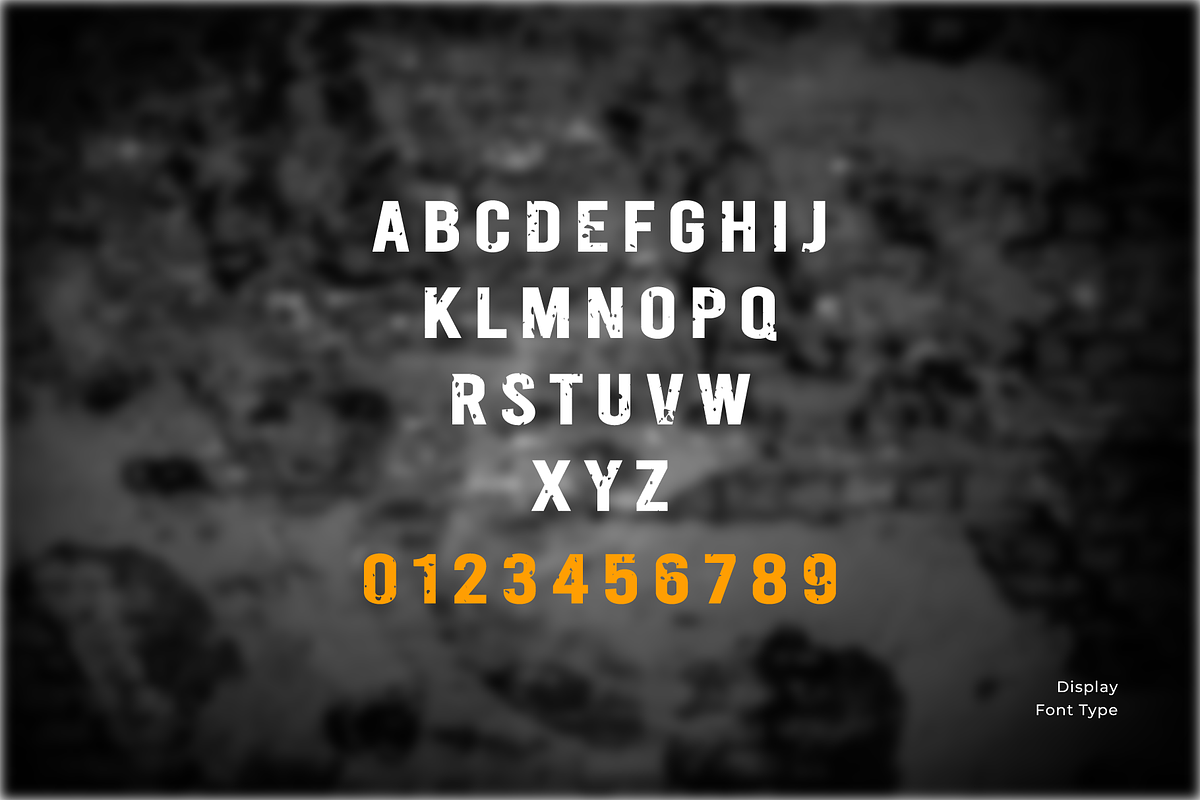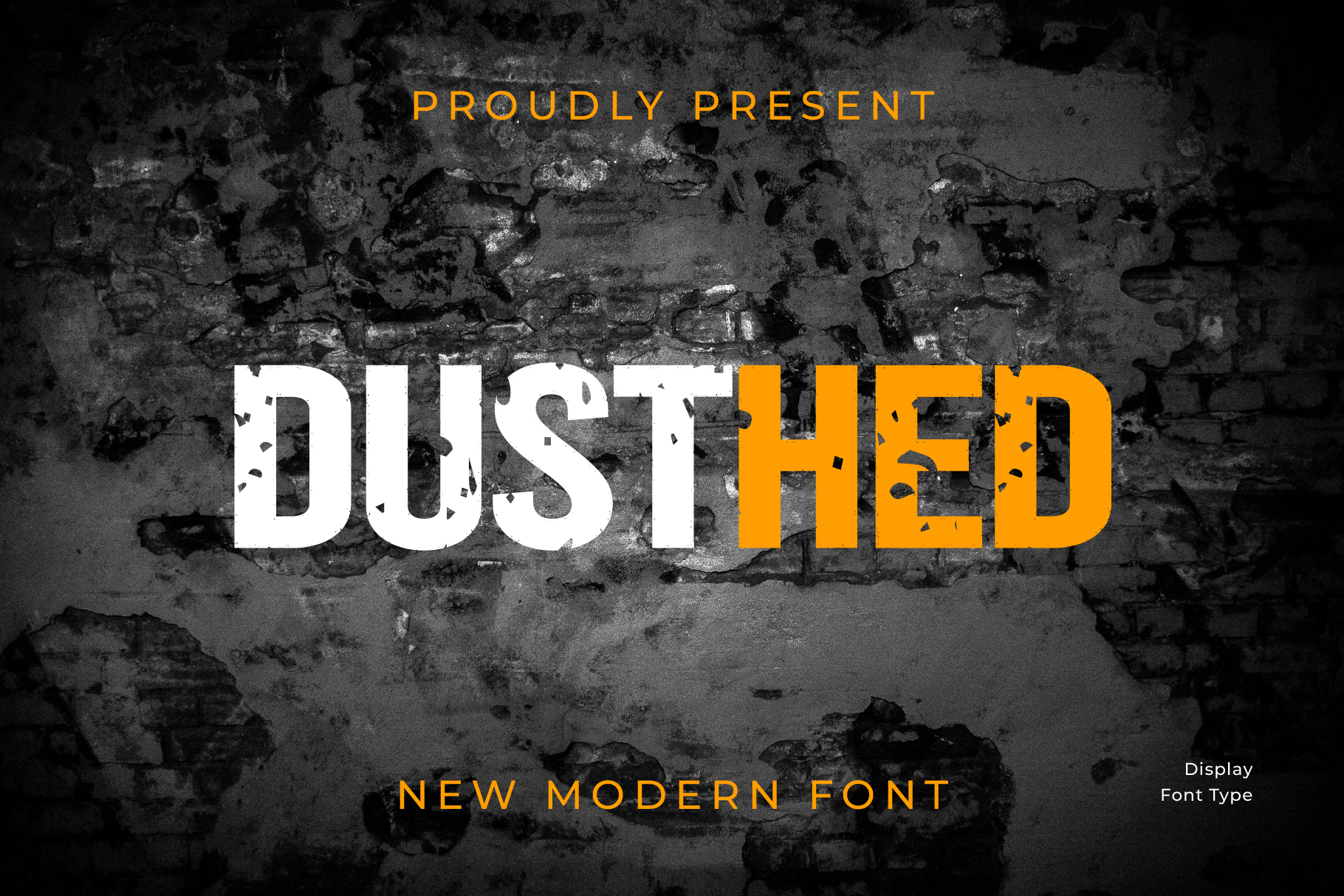
Display font Dusthed sans serif
Dusthed is a new addition to the world of typography. This font is casual, friendly, and perfect for any kind of creative endeavor you may be using.
Contains all capital letters, numbers, and basic punctuation.